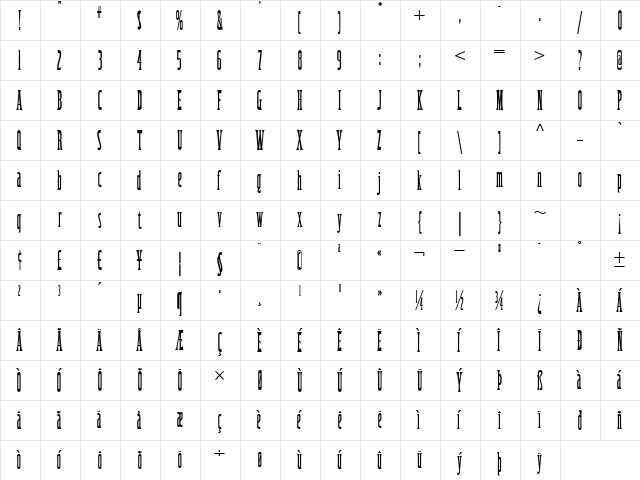
LagunaMadreWBW Regular Font Preview
LagunaMadreWBW Regular
LagunaMadreWBW Regular Font Details
Design Context for LagunaMadreWBW Typeface
LagunaMadreWBW offers clean, dependable letterforms without strong stylistic allegiance, making it a practical choice for designers who need flexibility.